Deltory
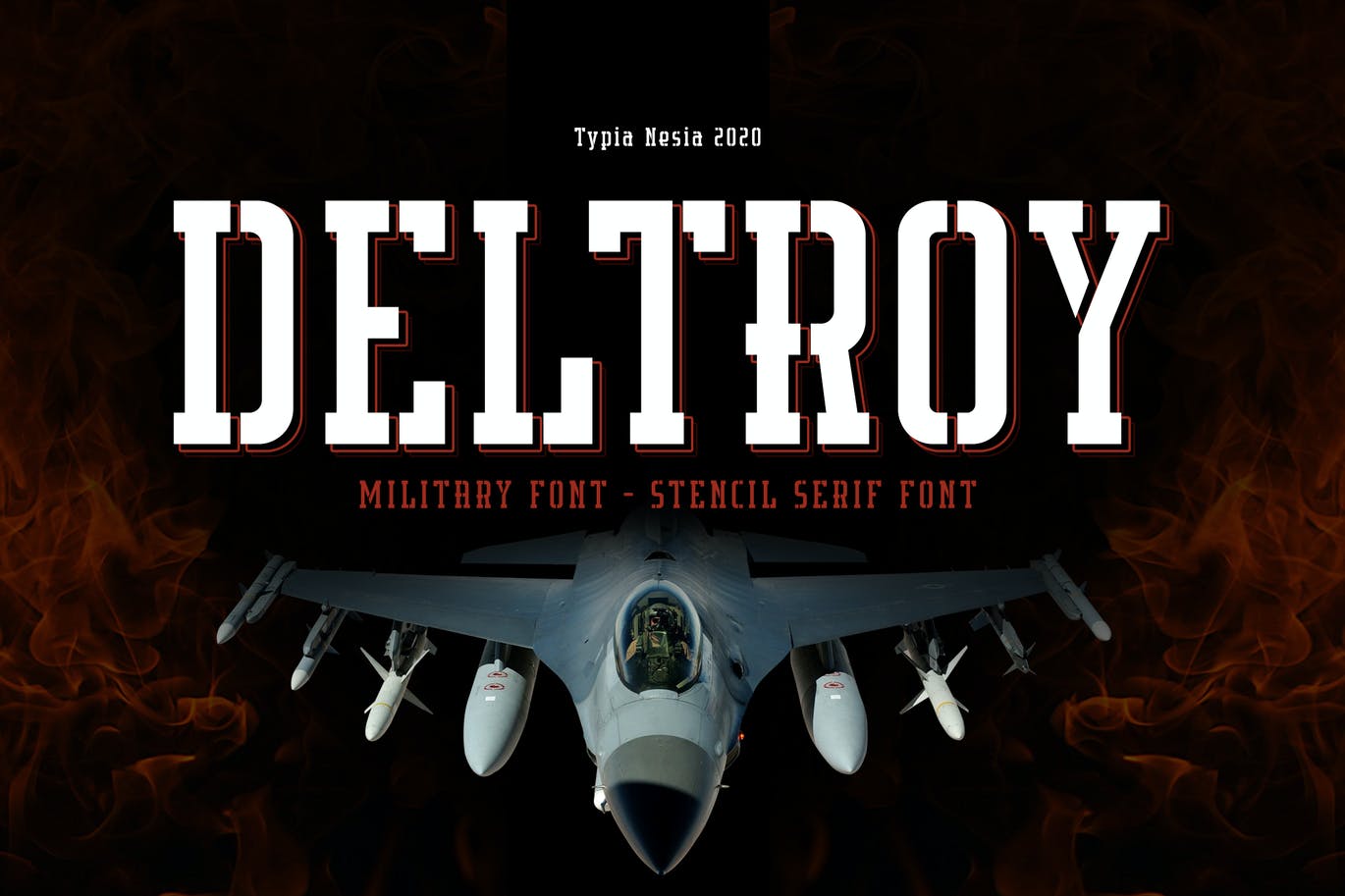
It is a military font that is perfect for your up coming projects such as logo branding, editorial designs, fashion, stationery designs, sport designs, blog designs, modern advertising designs, card invitations and etc.
Portway
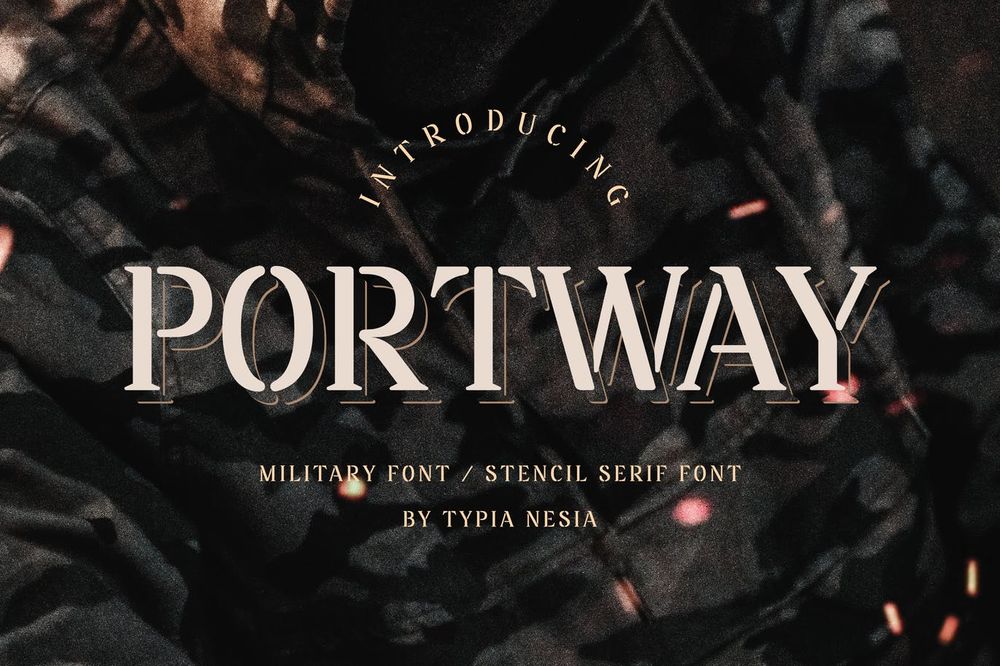
It is a stencil serif font that is perfect for your up coming projects such as logo branding, editorial designs, fashion, stationery designs, sport designs, blog designs, modern advertising designs, card invitations, art quotes and etc.
Airbone 86
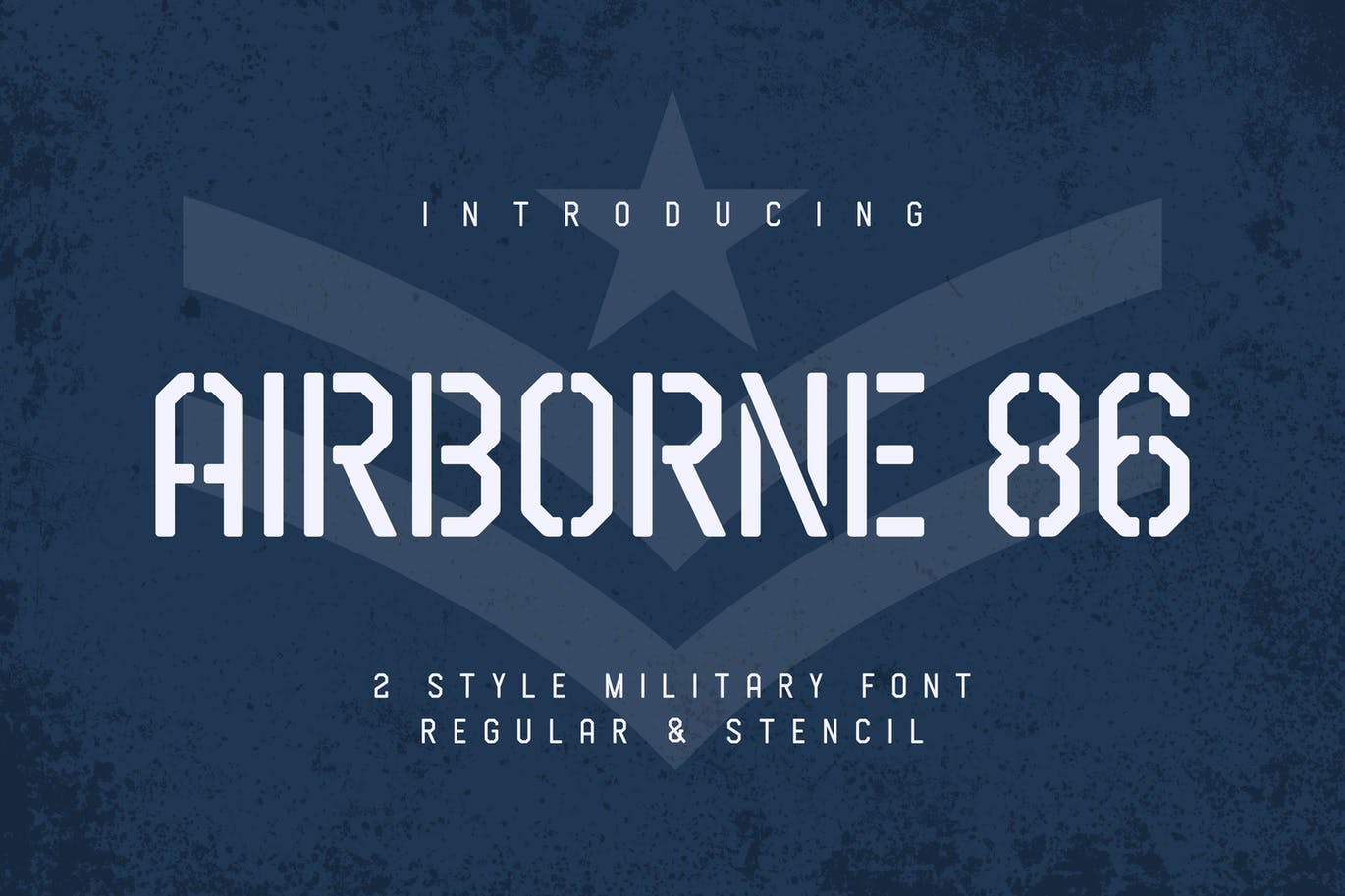
It is a sans military style font, first conceptualize was inspired by the classic vintage military stencil design. Ideal for army posters, scrapbooking, invitation cards, label stickers, stationary, gift wrap, packaging, clothes and etc.
Winstamp
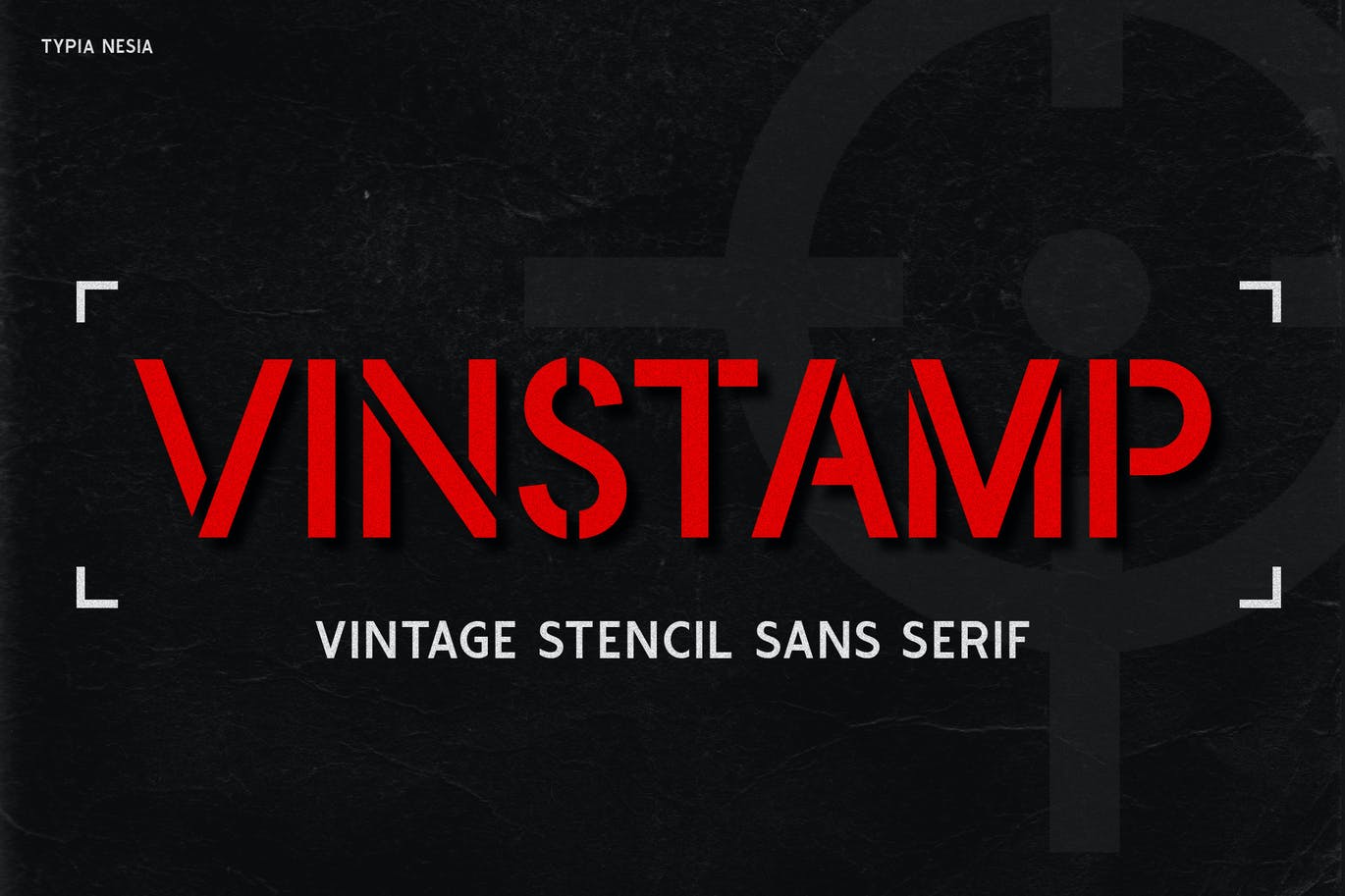
It is a true military font that is perfect for your up coming projects such as logo branding, game or esport industry, editorial designs, fashion, stationery designs, sport designs, blog designs, modern advertising designs, card invitations and etc.
Wargate
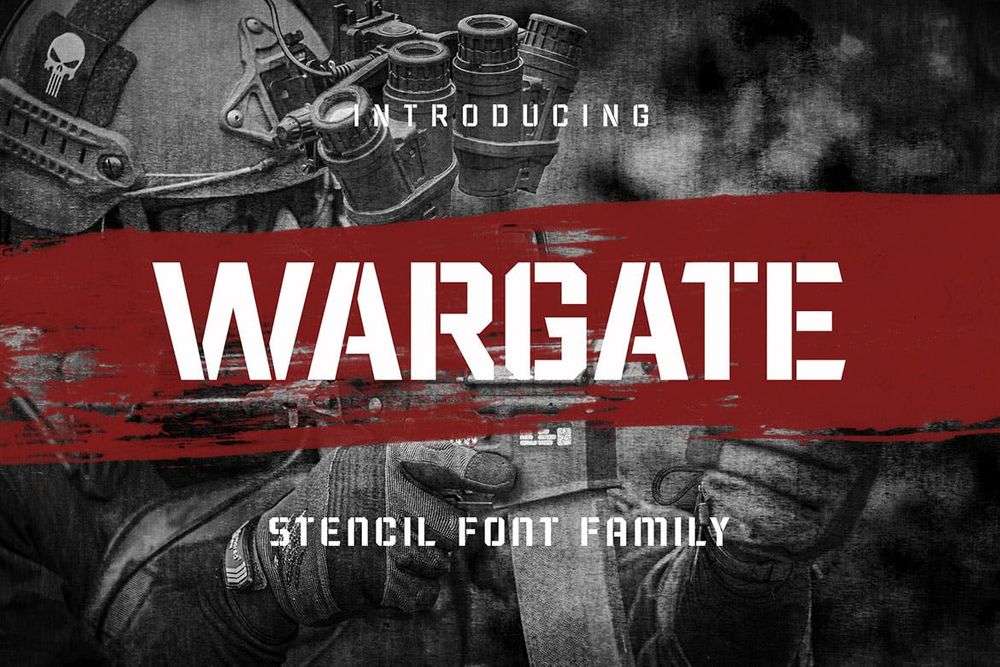
It is a solid stencil style inspired by military design and urban graffiti. Comes with 5 weight that perfect for display and short body text. Flexible for any design themes like military, sports, activism, youth spirits, attractive, vintage and etc.
Montserrat (Free)
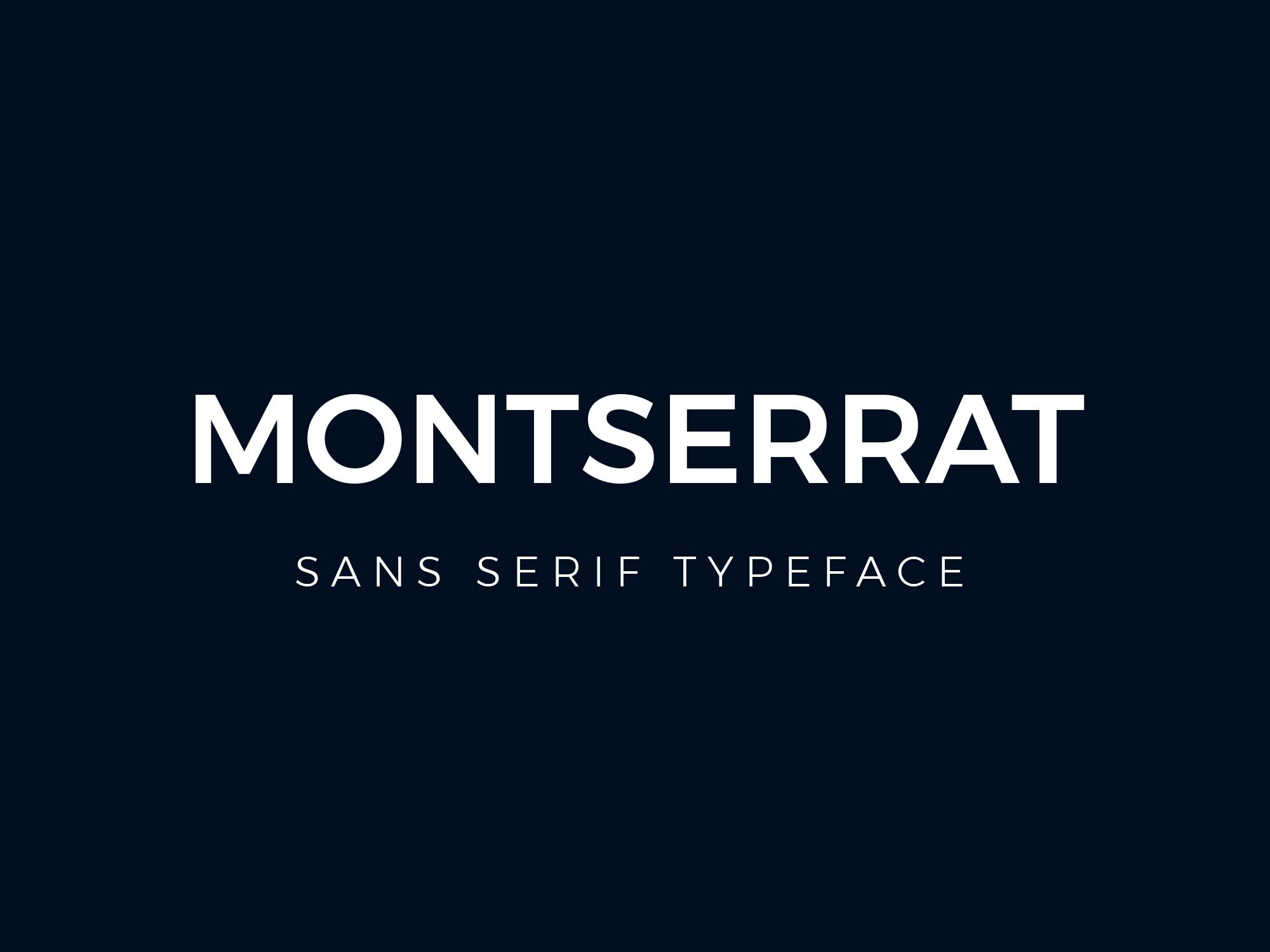
It is a free sans serif typeface family for your design projects such as military or army posters, branding and logos, headlines, tittles, covers and etc.
Browing (Free)
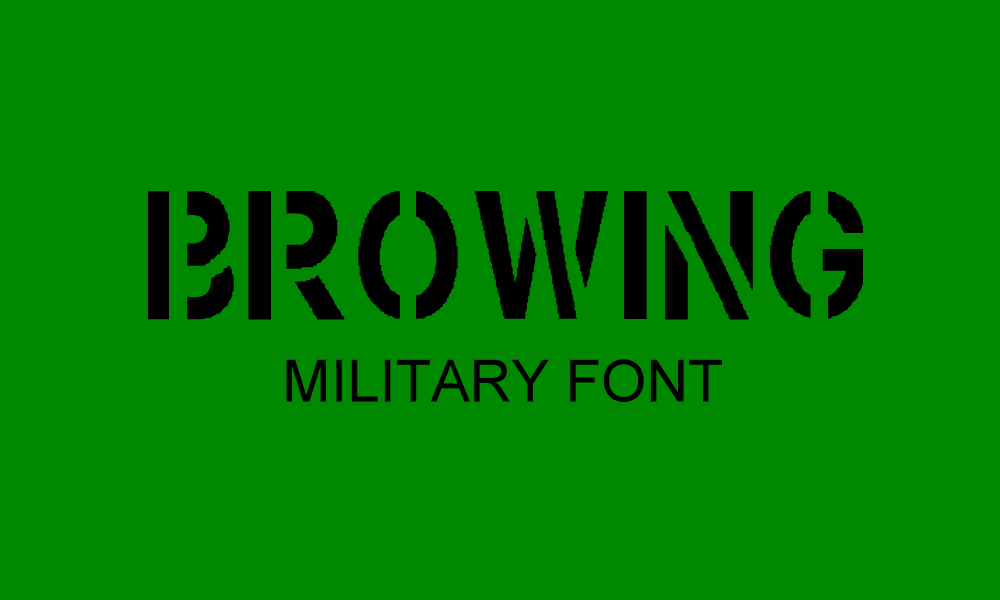
It is an classic military related font for your designs such as military and army posters, tittles, headlines, covers, flyers and etc.
Army Wide (Free)
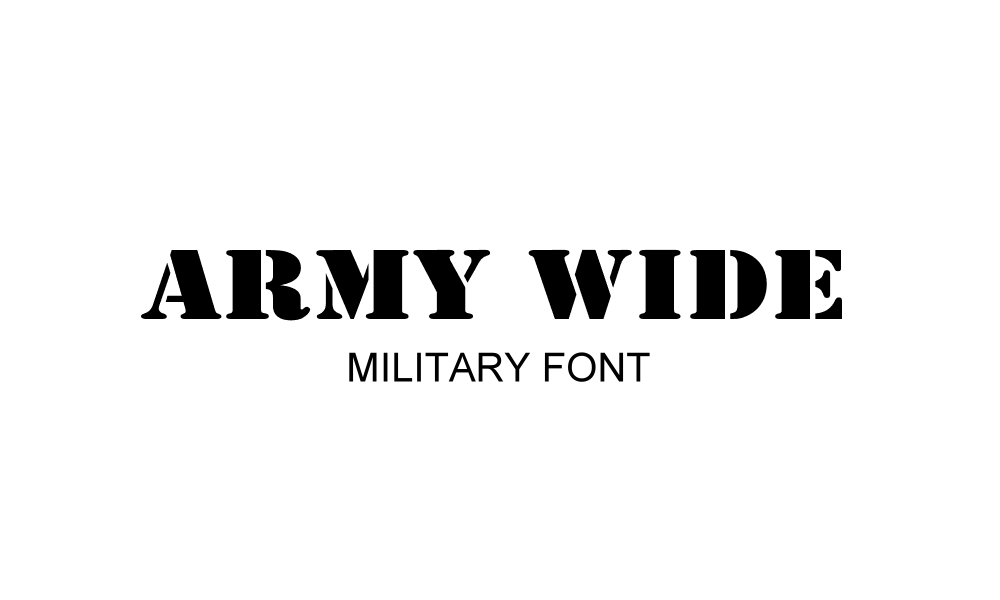
It is an classic stencil military related font for your designs such as military and army posters, tittles, headlines, covers, flyers and etc.
Angkatan Bersenjata (Free)
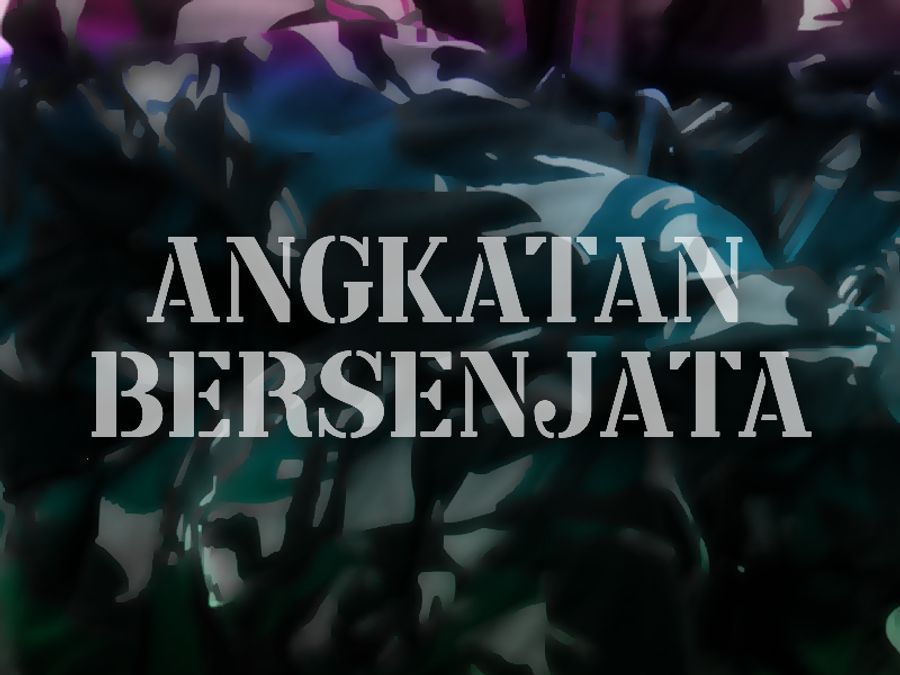
It is an classic stencil military related font for your designs such as military and army posters, tittles, headlines, covers, flyers and etc.
Surplus Pro
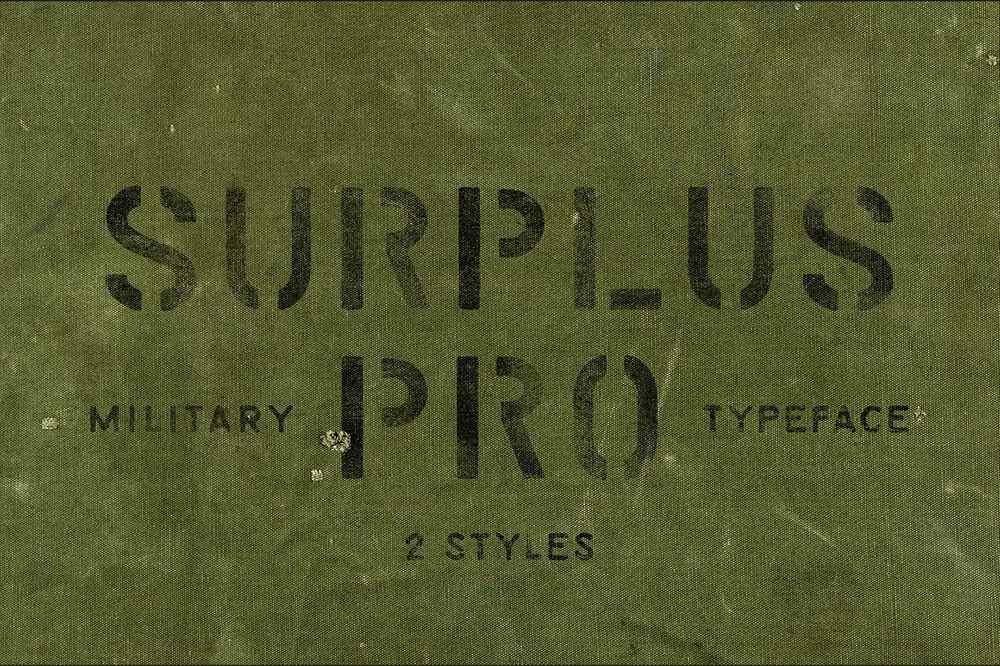
This font was inspired by the classic vintage military stencil a typeface that could be a solid base for any military inspired project. Ideal for packaging, signs, badges, covers, posters and etc.
USAAF Airforce Stencil
This font is created from artifacts of the chronicle of various real aircraft. Perfect for army related projects, book covers, posters, tittles, logos and etc.
Oakle
These fonts includes uppercase letters, numerals, a large range of punctuation. Sans serif font with modern style created for posters, web design, branding, illustrations, badges and etc.
Military Stencil
It is a cool and bold display font, featuring the perfect amount of trendiness. This original look will appeal to a wide range of crafty ideas, from letterheads and titles, to stationery.
Union Stacked
A rock solid, perfectly aligned, layered type system which features 5 unique weights. Ideal for any military designs, posters, covers, hedalines, tittles and etc.
The Colonel
This font has a single weight, with pressed and scratched variations, along with a lower case (a rarity for stencil families). Perfect for any military designs, logos, badges, posters, covers and etc.
SGT. Jhon O
It is a strong stencil cutout font that emphasize the military shape you took. Perfect for online games, posters, movie titles, military t-shirt/apparel, magazines, youtube covers, youtube thumbnails, social media page covers and etc.
Coutline
It is an all caps stencil display font sans-serif that inspired by military design and urban graffiti. Ideal for branding projects, logos, wedding designs, social media posts, advertisements, product packaging, product designs, labels, photography, watermarks, invitations and etc.
Military Kid
It is a strong stencil cutout font that emphasize the military shape you took. With a bit bouncy baseline and skew shape, it does add some childish feel in it. Perfect for online games, posters, movie titles, military t-shirt/apparel, magazines, youtube covers and etc.
Sharp Shooter
It is a strong stencil cutout font that emphasize the military shape you took. This font took the serif style into the training, and becoming the best marksman in the field. Best for online games, posters, movie titles, military t-shirt/apparel, magazines, youtube covers, youtube thumbnails, social media page covers, military apparel posters and etc.
Cold Army
It is a stencil display font. Strong and delicate it makes a statement when used. Use this font for your designs such as army t-shirts, headlines, tittles, posters and explore its endless possibilities.
Destro